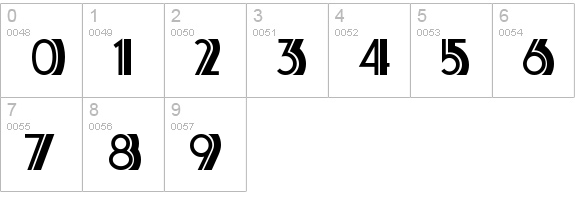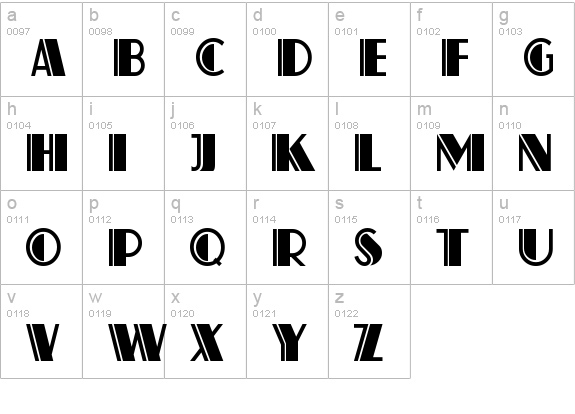
Atlas Solid Font Details
Introducing Atlas Solid font, a versatile typeface that exudes strength and stability. With its bold and powerful design, Atlas Solid is perfect for making a bold statement in any project. This font is ideal for headlines, logos, branding materials, and much more. The clean lines and solid structure of Atlas Solid make it a timeless choice for any design need. What's even better is that Atlas Solid is available for free download at FontsMarket.com. You can easily access this high-quality font and incorporate it into your projects without any cost. Don't miss out on the opportunity to enhance your designs with the impactful Atlas Solid font. Download it now and unleash your creativity!